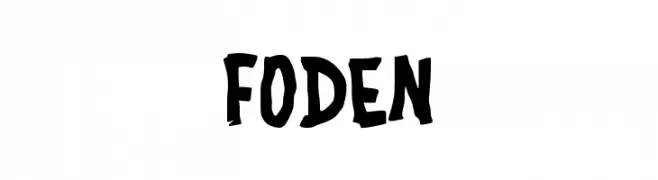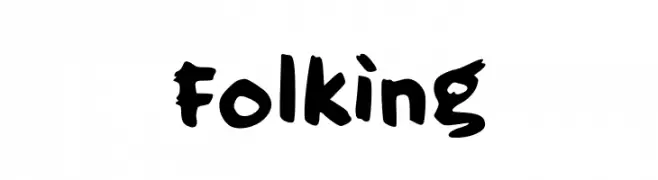
A bold, hand-drawn font with a rough, textured appearance and playful style.
A bold, hand-drawn font with irregular, expressive strokes.
A decorative font with a rugged, organic texture and irregular edges.
A playful, hand-drawn font with decorative dot-filled characters.
A bold, chaotic font with a melting, textured appearance.
A bold, playful font with a hand-drawn, friendly appearance.
A bold, hand-drawn font with an expressive and artistic style.
A bold, handwritten font with a playful and dynamic style.
A bold, brush-style font with an energetic and artistic flair.
A bold, playful handwritten font with uneven strokes and a casual feel.